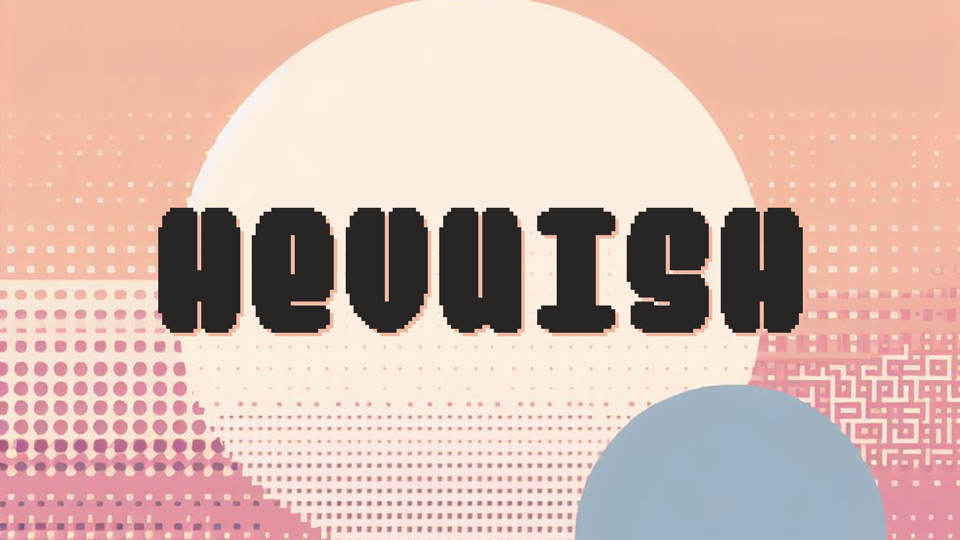
Hevuish is the font that packs a heavy, pixelated punch with a playful and cartoony twist. Each character in Hevuish font is meticulously designed with chunky pixels shapes, resulting in a font that radiates a sense of fun and energetic charm. This heavy pixel cartoon font captures the essence of retro gaming and pixel art with its oversized letterforms and vibrant personality.
Hevuish font is ideal for designs that require a whimsical, fun-loving aesthetic. Whether you’re creating eye-catching video game titles, lively comic book covers, or branding materials for a product line that caters to the young at heart, “PixelPunch Heavy” adds a burst of playful character and a hint of pixelated delight to every letter.